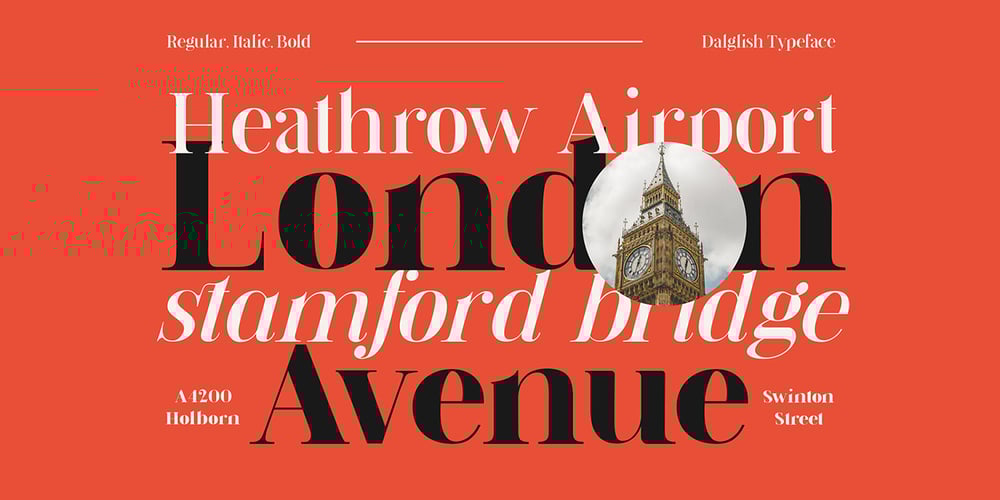
Dalglish Font Family was designed by Tanzil Adduha and published by Tanziladd. Dalglish contains 3 styles and family package options. Dalglish is a serif family with clean curves that gives the typeface a refined touch that give any headline an elegant appearance, with both modern and vintage curves. Dalglish represents luxury, glamour, exuberance, and faith in social and technological progress. Dalglish is inspired by the art deco design style and poster design at France in the 19th Century. Dalglish has pretty alternatives glyphs choice in the pack as well. Beside those alternatives, the pack also includes three different stylistic alternatives which are Regular, Italic, Bold annd multilingual support.